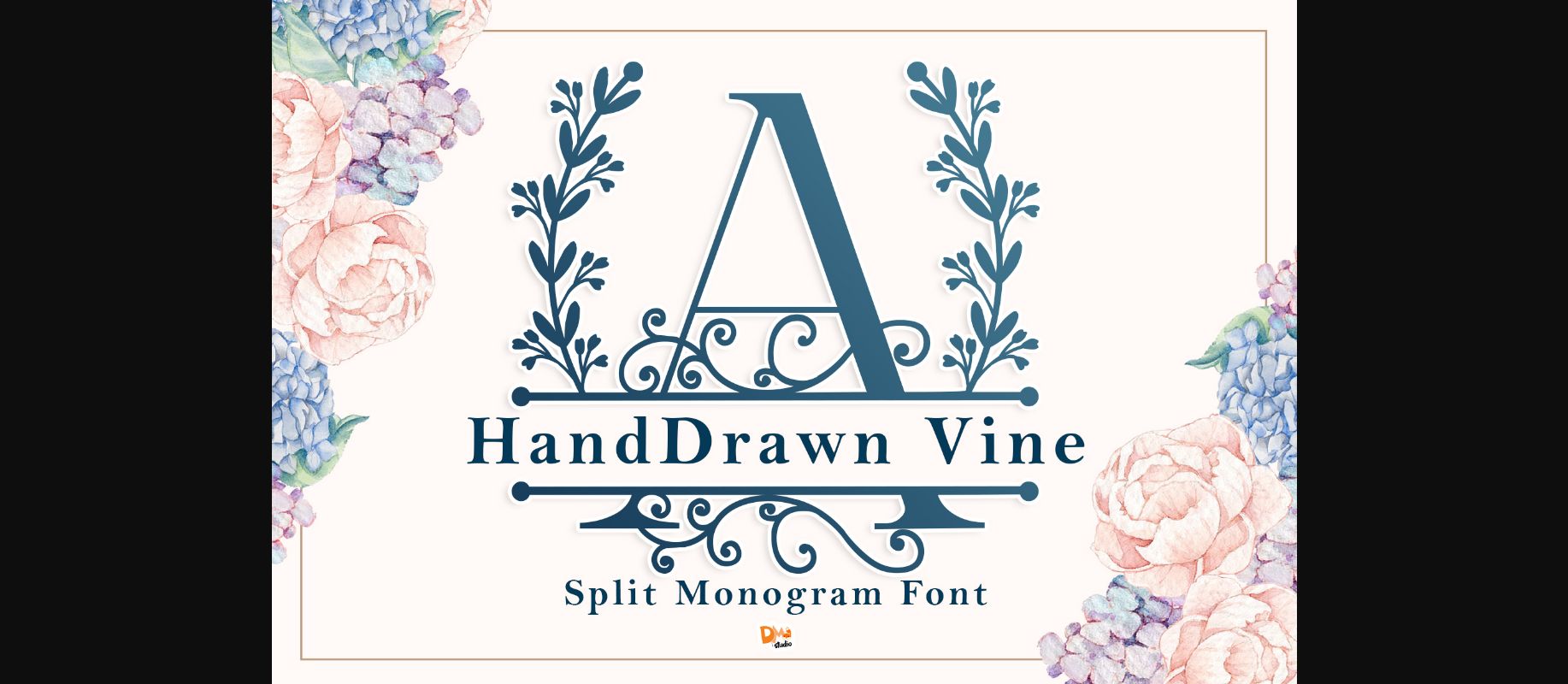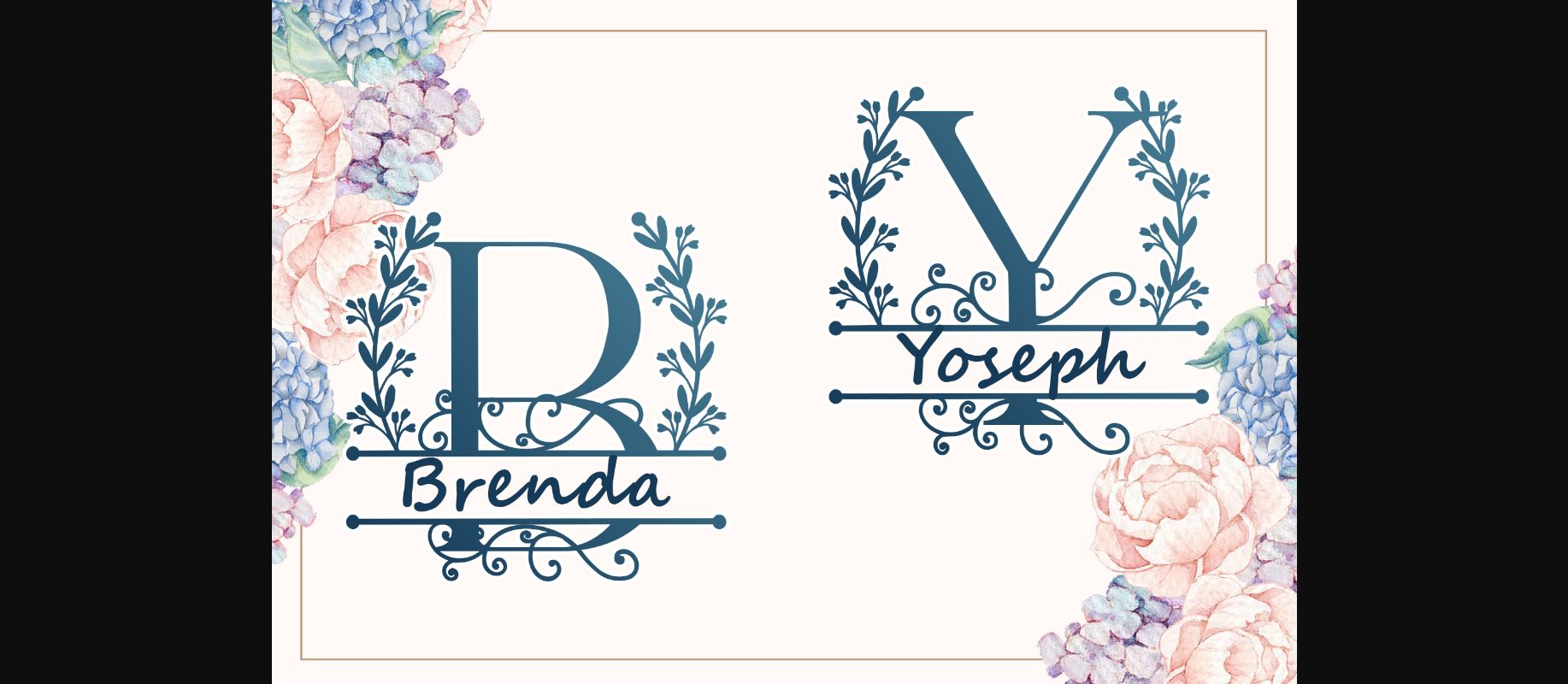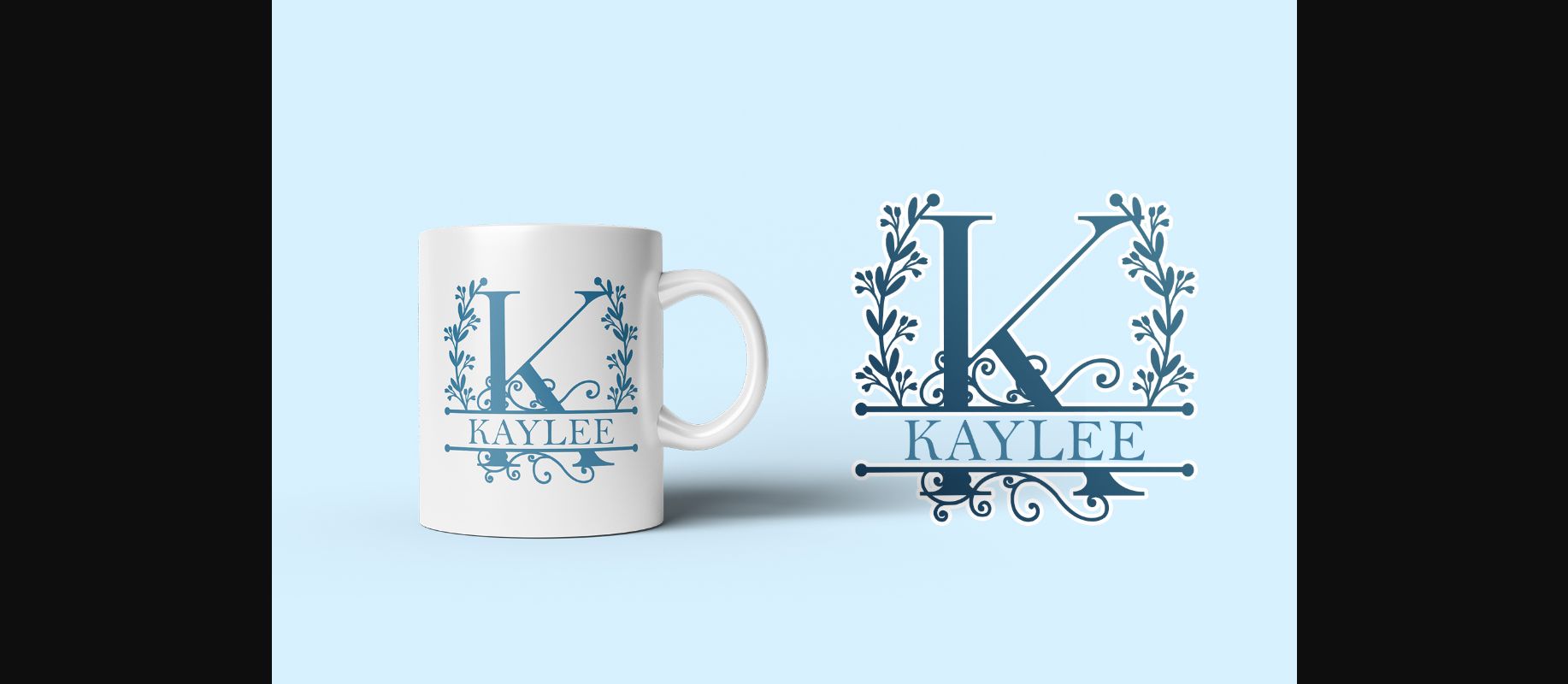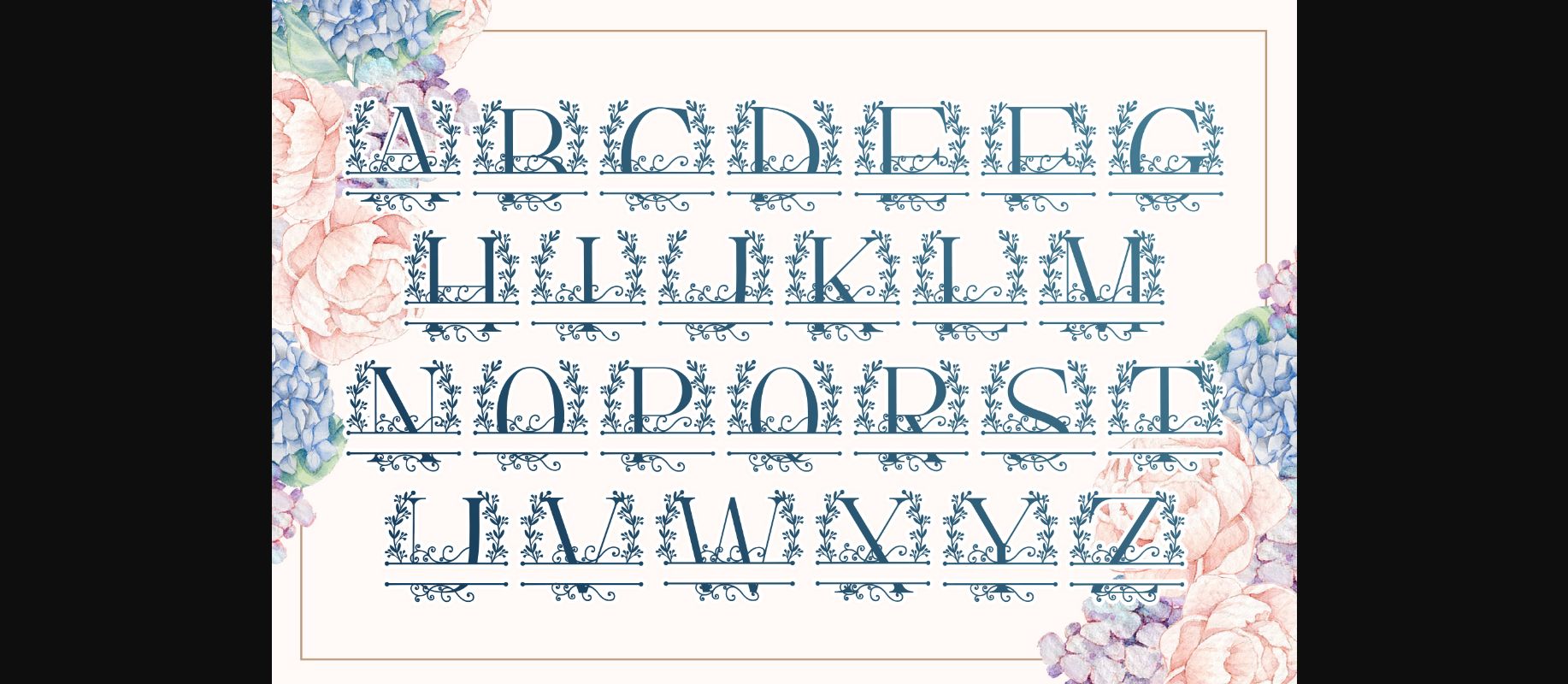
About Handdrawn Vine Font
Handdrawn Vine is a stunning monogram decorative font with a floral theme. Use this font for any crafting project that requires a personalized look!